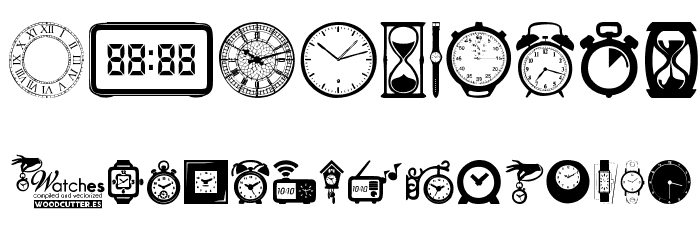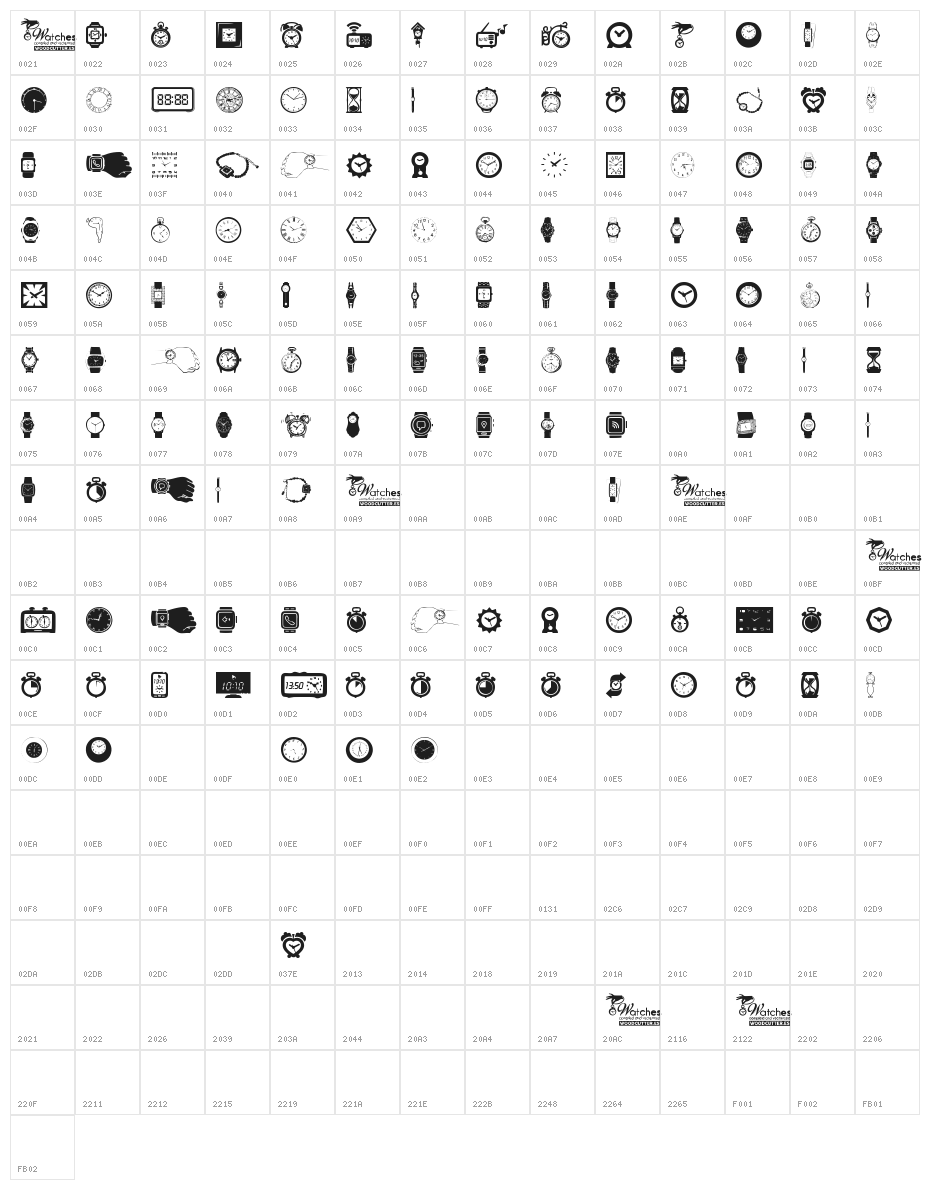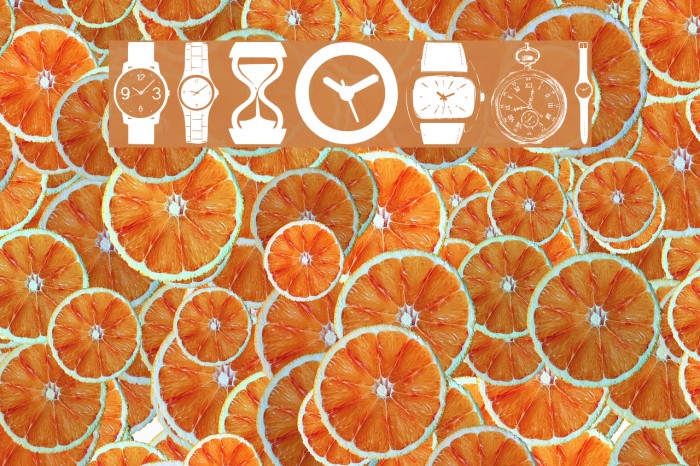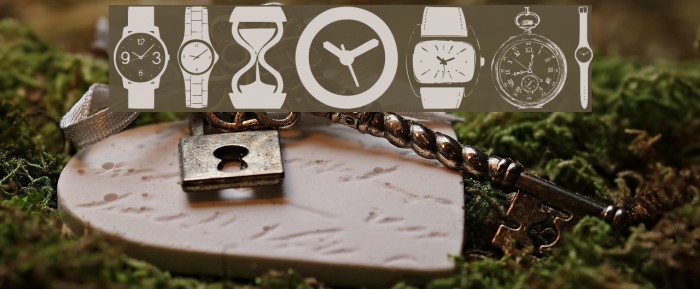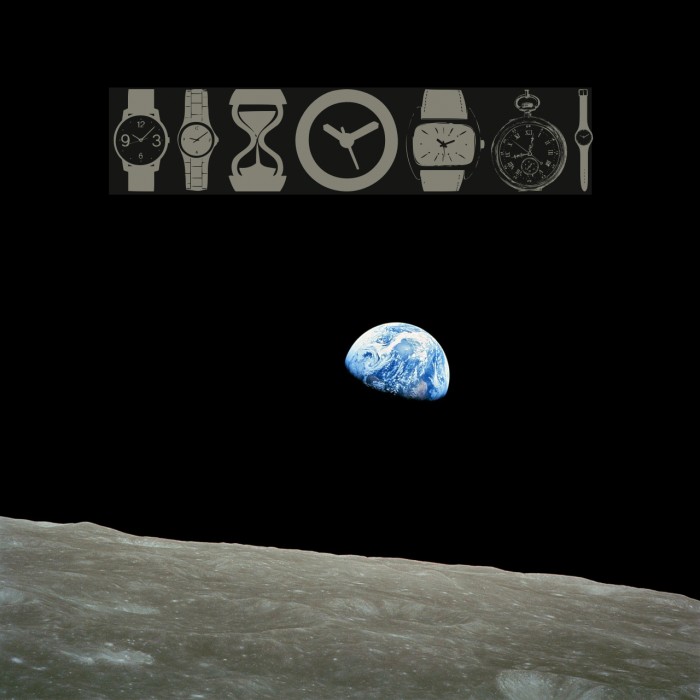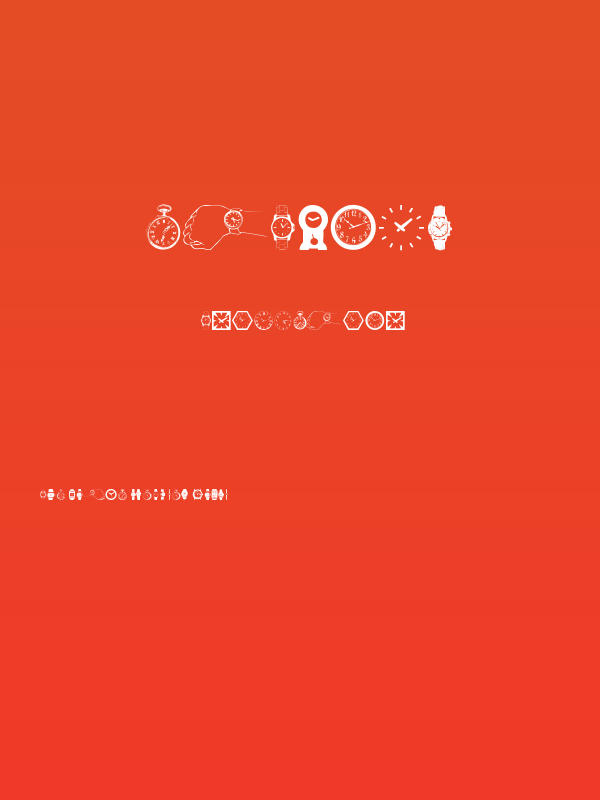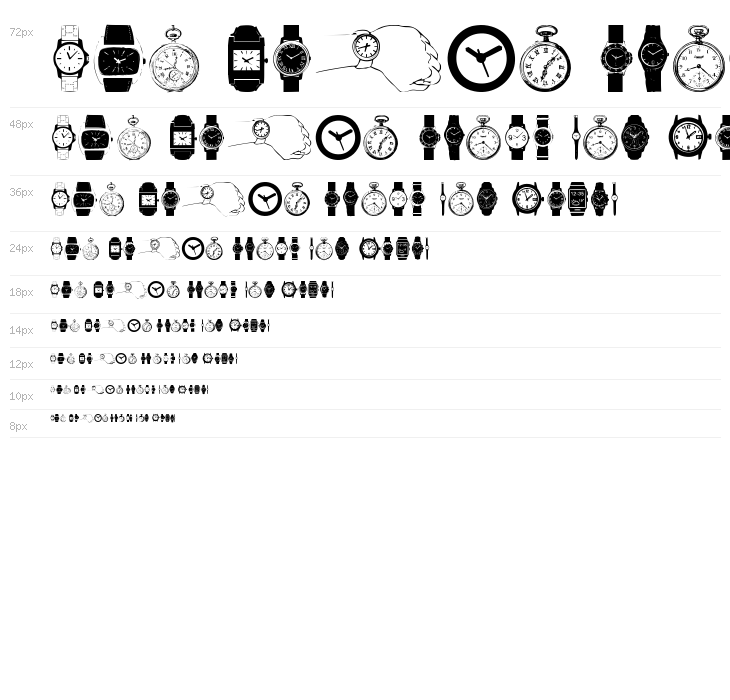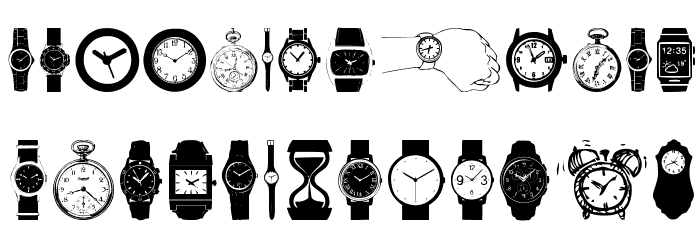
watches Font
watches Description
A decorative and illustrative font composed entirely of various watch and clock icons, including analog, digital, pocket watches, wristwatches, alarm clocks, hourglasses, and related timekeeping devices, rendered in black and white with a mix of detailed and simplified styles.
| Overall Style | Decorative, Playful, Thematic |
| Use Case | Logos, Headlines, Themed graphics, Icons |
| Proposed Projects | Time-related infographics, event posters, educational materials, themed party invitations, branding for watch shops. |